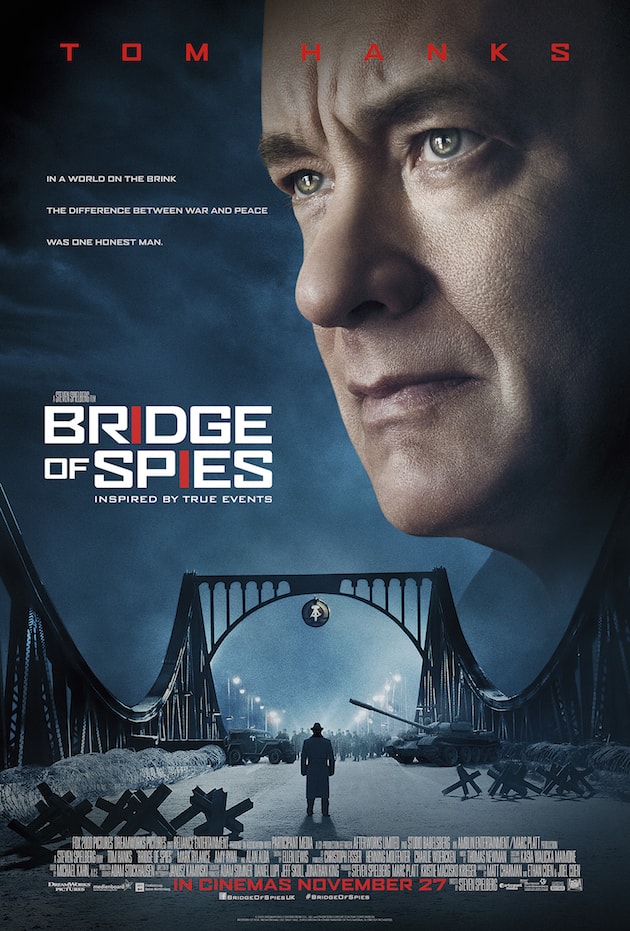
Bridge of Spies Font
DramaBridge of Spies is a 2015 historical drama film directed by Steven Spielberg and starring Tom Hanks. The film is set during the Cold War and follows the story of an American lawyer who is tasked with negotiating the release of a captured U.S. pilot.
The film title on the poster is set in a square sans-serif font similar to Agency FB Bold Extended by David Berlow of Font Bureau. You can view and download the font here.